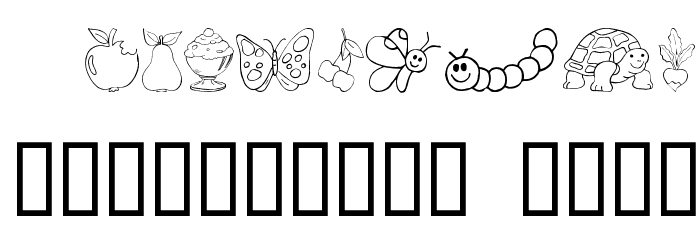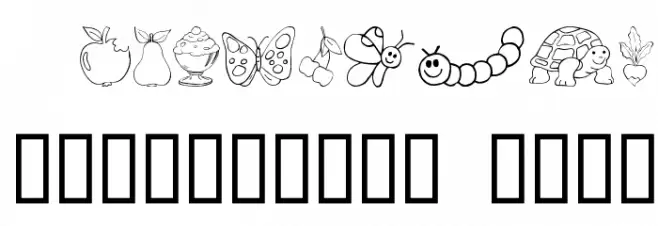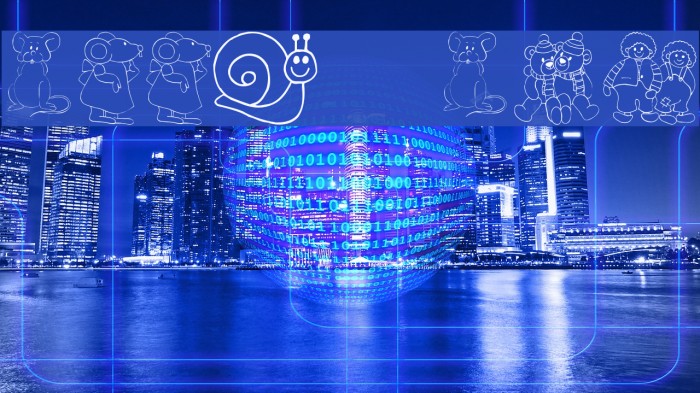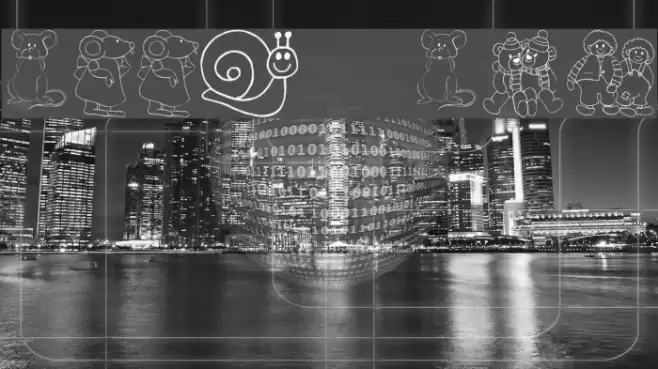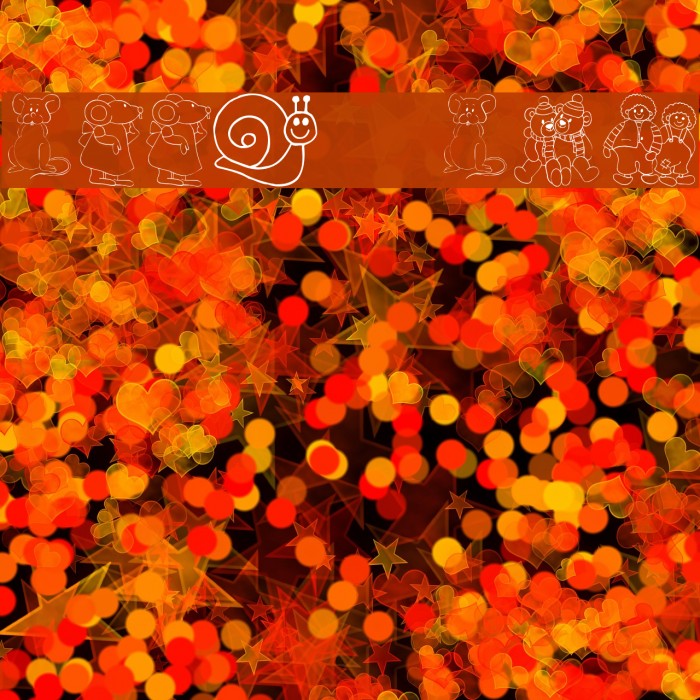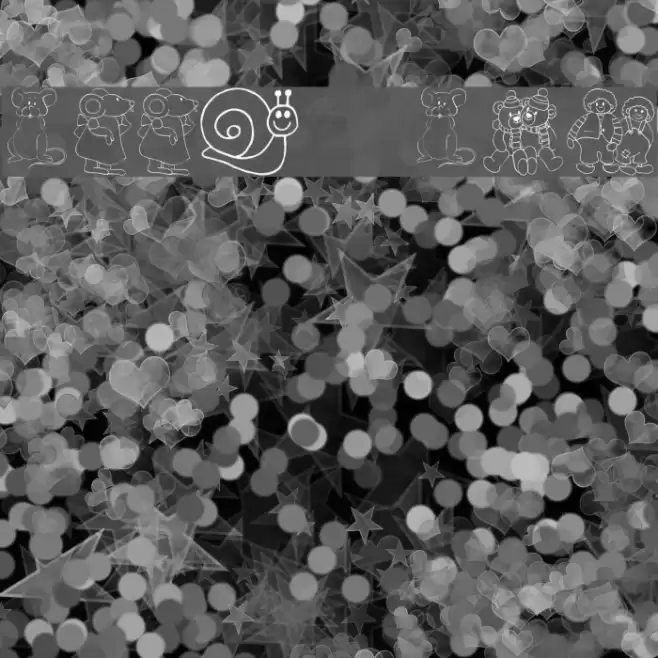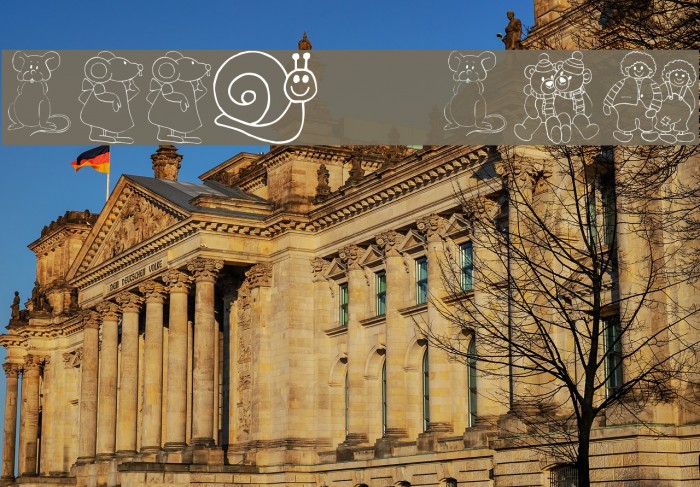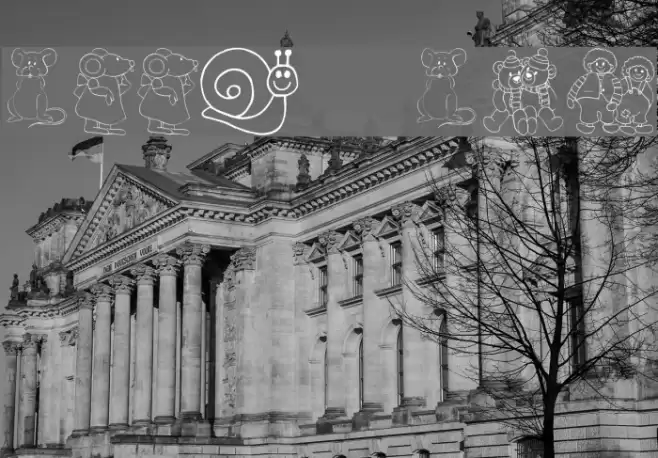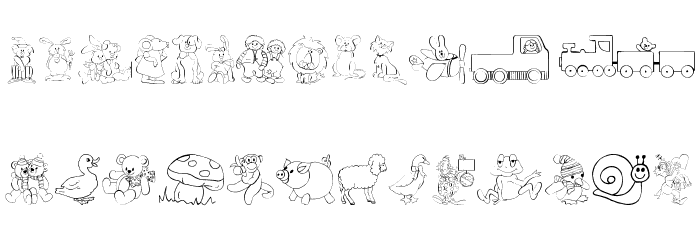
KiddyDing Font
✎ Dingbats
| Estilo geral | Playful, Whimsical |
| Caso de uso | Illustrations, Children's materials |
| Projetos propostos | Ideal for children's books, educational materials, and playful graphic designs. |